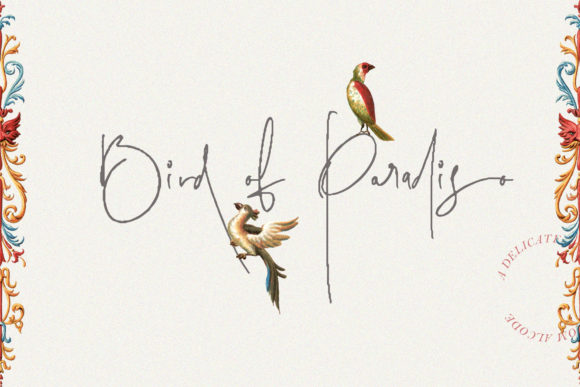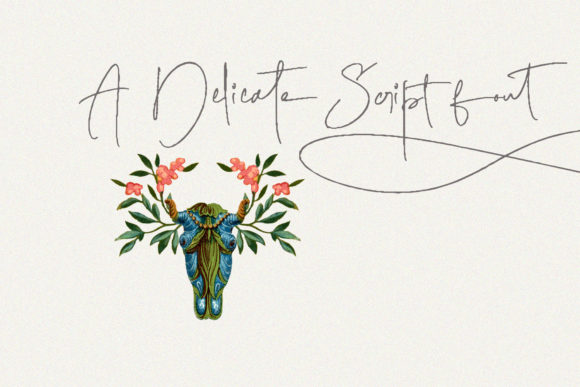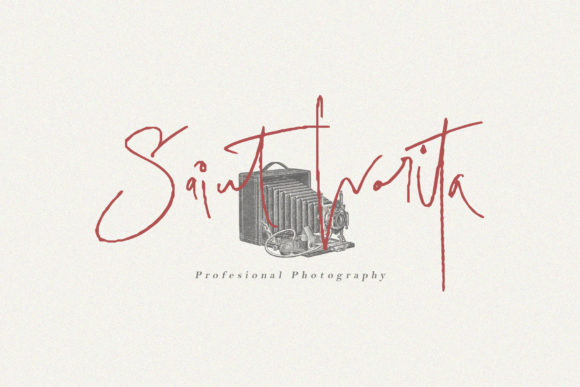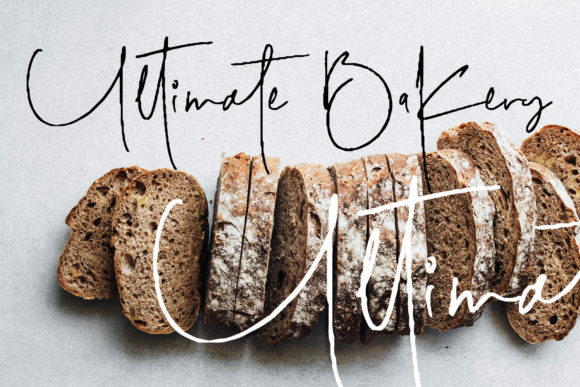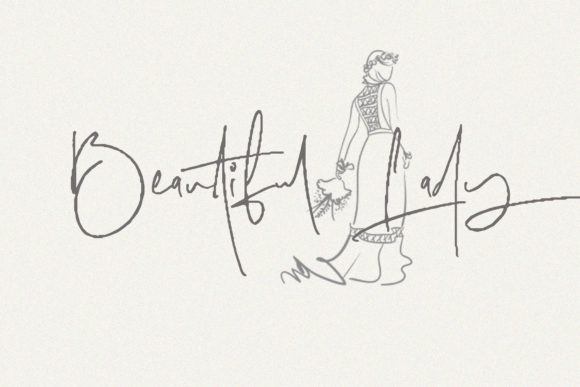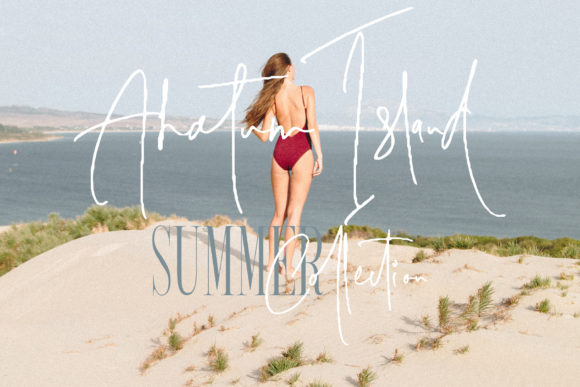
The Gitdola Font: A Designer’s New Best Friend
I’ll never forget the time I was working on a branding project for a trendy new coffee shop. My client wanted a logo that was both modern and approachable, with a dash of whimsy. As I scrolled through font after font, nothing seemed quite right. That was until I stumbled upon Gitdola – a thin lettered and casual handwritten font that instantly captured the vibe I was going for.
Gitdola is more than just a pretty face, though. It’s also incredibly versatile, making it perfect for creating eye-catching logos, branding materials, and quotes. And with its PUA encoding, accessing all the glyphs and swashes is a breeze!
- ✨ **Elegant and understated**: Gitdola’s thin lettering gives it a sophisticated feel that’s hard to achieve with bold or over-the-top fonts.
- ✅ **Easy to read**: Despite its delicate appearance, Gitdola remains clear and legible, even at smaller sizes.
- 💫 **Highly customizable**: With PUA encoding, you can easily access a wide range of glyphs and swashes to make your text truly unique.
While Gitdola is an amazing font, it’s not without its quirks. For example:
- ⚠️ **Limited use in very large or very small sizes**: Gitdola shines at display sizes, but can become a bit lost at very small sizes (e.g., body text). Be mindful of your design goals and consider pairing it with a complementary font for body text.
- 🤔 **Some manual kerning may be required**: As with any font, you may need to do some manual kerning to get the spacing just right, especially for larger text or headings.
The Story Behind Gitdola
While the origins of Gitdola are shrouded in mystery, it’s easy to imagine a designer pouring their heart and soul into crafting such a beautiful, versatile font. Perhaps they were inspired by the fluid lines of handwritten scripts, combined with the elegance of thin lettering. Whatever the story, Gitdola has undoubtedly become a beloved font among designers and creatives.
Q: What is PUA encoding, and how does it benefit Gitdola?
PUA (Private Use Area) encoding allows font creators to include additional glyphs and characters that aren’t part of the standard Unicode range. For Gitdola, this means you get easy access to a wide range of swashes and glyphs to customize your text.
Q: Is Gitdola suitable for body text?
While Gitdola is stunning at display sizes, it may not be the best choice for body text due to its thin lettering. Consider pairing it with a complementary font for longer blocks of text.